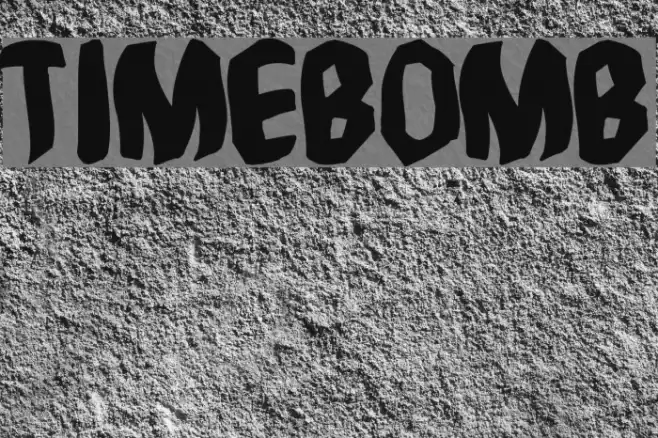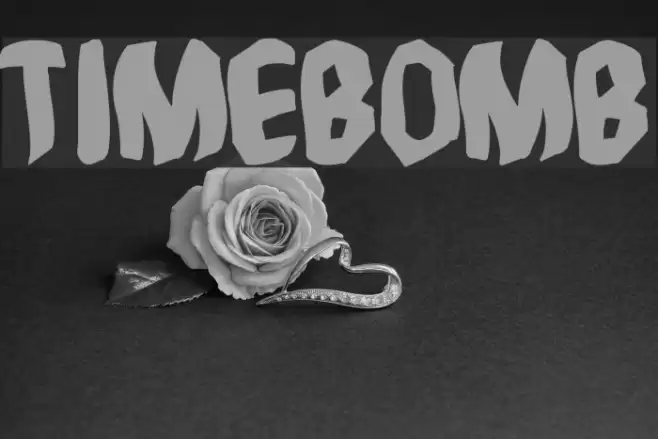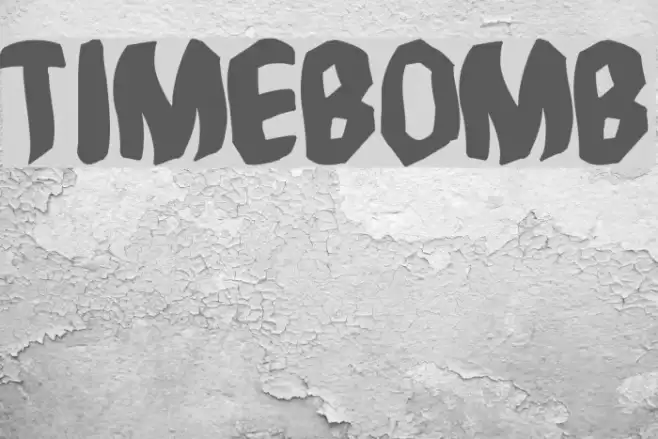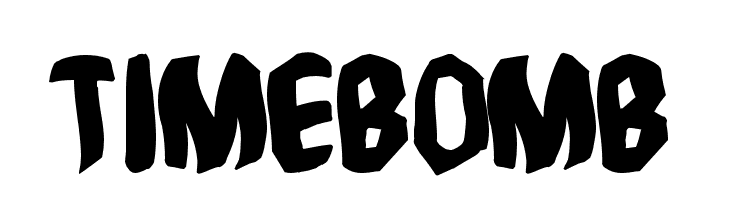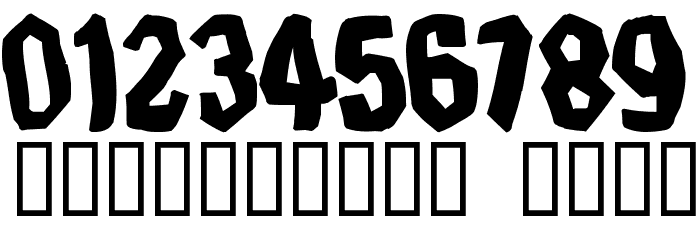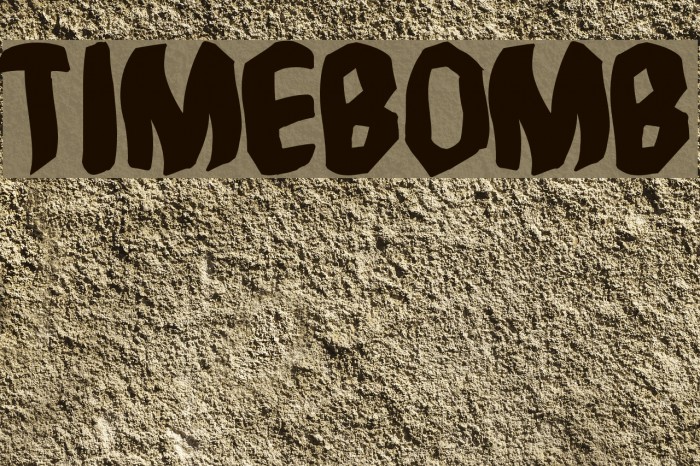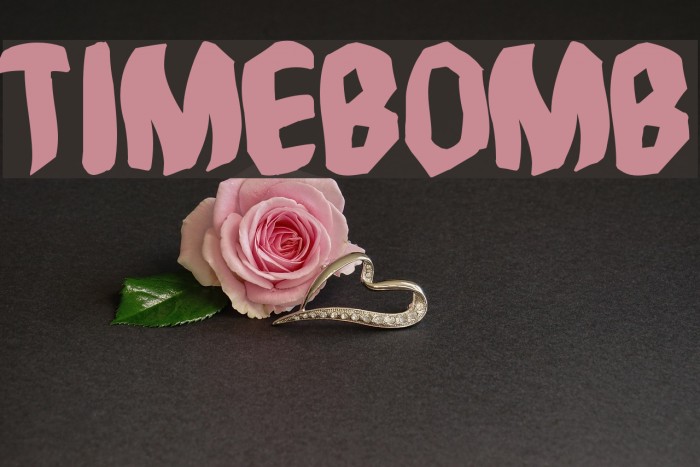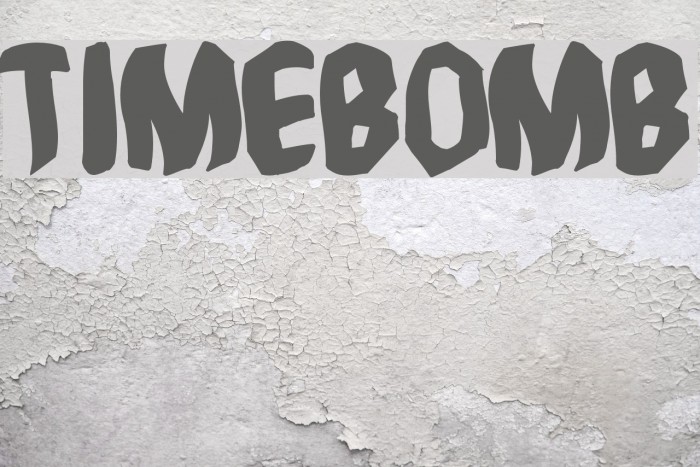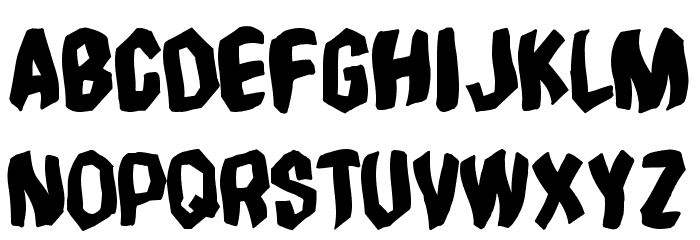
Timebomb Font
Timebomb Description
This font features a bold and dynamic style with a distinctly irregular and jagged appearance, reminiscent of graffiti or street art. The characters are heavily stylized, with sharp angles and uneven edges that give them a sense of movement and energy. The uppercase and lowercase letters maintain a consistent design, while the numbers and special characters follow the same aesthetic, ensuring a cohesive look across all elements. The font's unique style makes it stand out, making it ideal for projects that require a strong visual impact.
A bold, jagged font with a graffiti-inspired style from Distorted Eroded fonts.
- Proposed Projects: Ideal for street art designs, edgy posters, album covers, and urban-themed branding.
- Overall Style: Modern, Urban